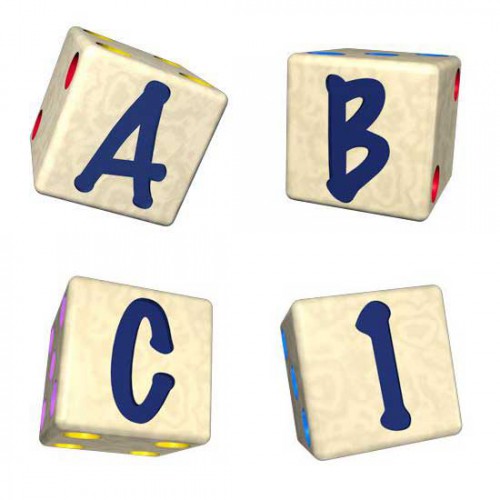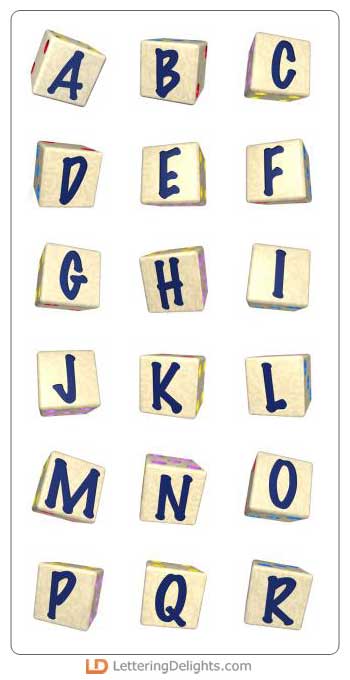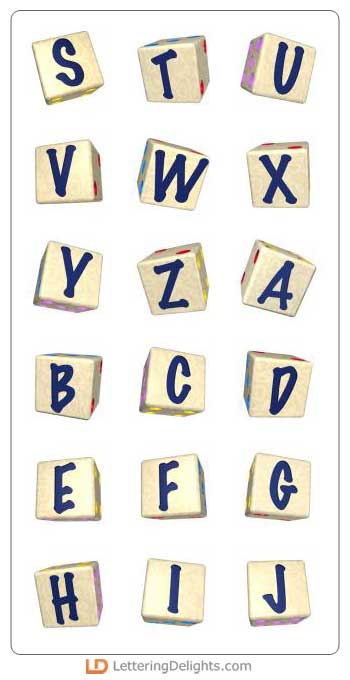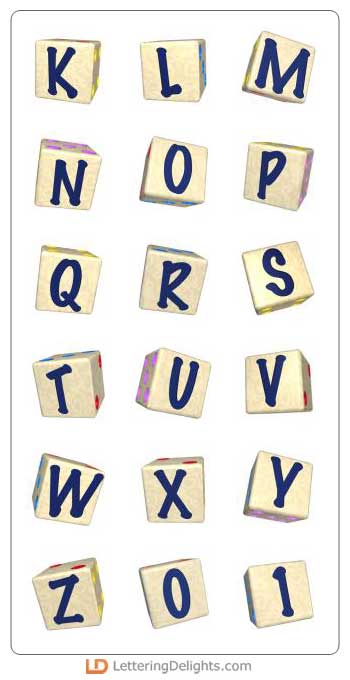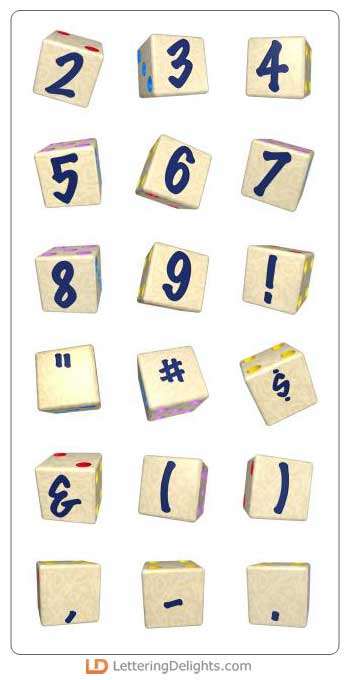
Each letter of this alphabet is contained on one side of a die. The other numbers of the dice are visible on the other sides. If your luck holds out, maybe you'll roll "snake eyes"!